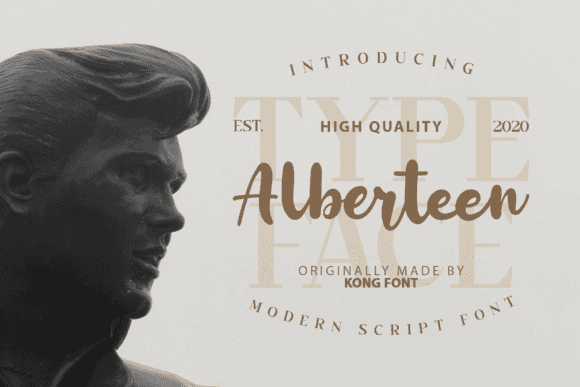
Alberteen Font for Cricut, Silhouette and Printable Designs
This is a delightful handwritten font designed for use in Cricut, Silhouette, and printable projects. Alberteen features smooth, casual strokes and a handcrafted charm that adds character to your designs. Perfect for invitations, greeting cards, and personalized gifts, Alberteen elevates any project with its unique flair. It is particularly ideal for those looking for an allians running font for cricut, as its flowing style complements a variety of creative themes. With its versatility and charm, this font is sure to become a favorite in your design toolkit. Whether you’re creating personalized gifts or adding a unique touch to your home decor, this font will elevate your creative endeavors. If you're looking for a complementary style, try incorporating the alpacico font for design projects, as it perfectly pairs with Alberteen for a more cohesive look. With its playful elegance, Alberteen is sure to inspire countless imaginative applications.
As a font entity, Alberteen offers a friendly, relaxed look perfect for personalized crafting, custom products, and everyday printables. Its simple structure ensures clean cuts and easy readability across media.
Ideal for labels, stickers, stationery, and DIY gifts where personality matters.
- Custom mugs, tumblers, and gift tags
- Printable signs, cards, and decor
- Cuttable labels, decals, and names
- Personalized t-shirts and apparel
- Event themes, invites, and thank-you cards
- Casual handwritten style with charm
- Perfect for cutting and print platforms
Q: What style of font is Alberteen?
A: Alberteen is a casual, handwritten font designed for crafting, printable projects, and digital creativity.
Q: Can I print this on cards or apparel?
A: Yes, it’s perfect for printed designs, apparel decoration, and handmade items.